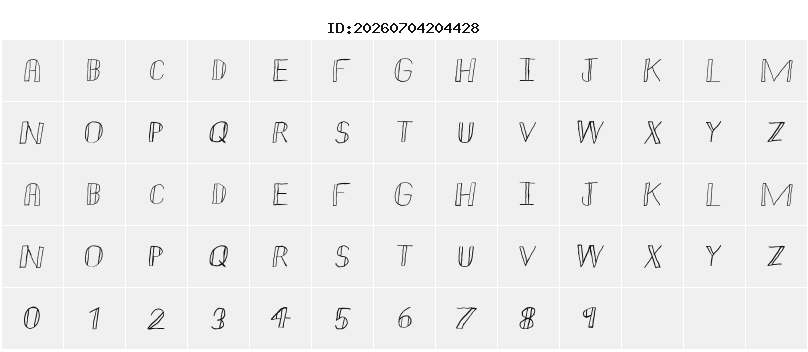
Double Strike Preview
• Font Name: Double Strike
• Full Font Name: Double Strike
• PostScript Name: DoubleStrike
About Double Strike.ttf
Double Strike.ttf is a modern, elegant sans-serif font designed for ultimate readability and visual harmony. Perfect for branding, headlines, web design, and print materials.